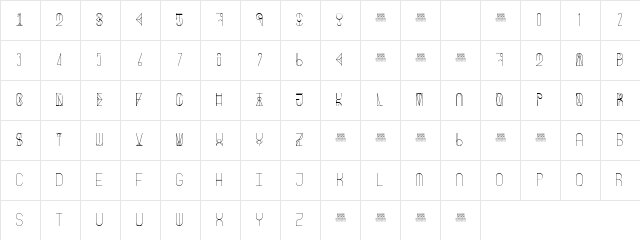
Freak Show is a composed and adaptable typeface that performs quietly and consistently across a wide range of design contexts. Its slender proportions lend an understated elegance to any composition.